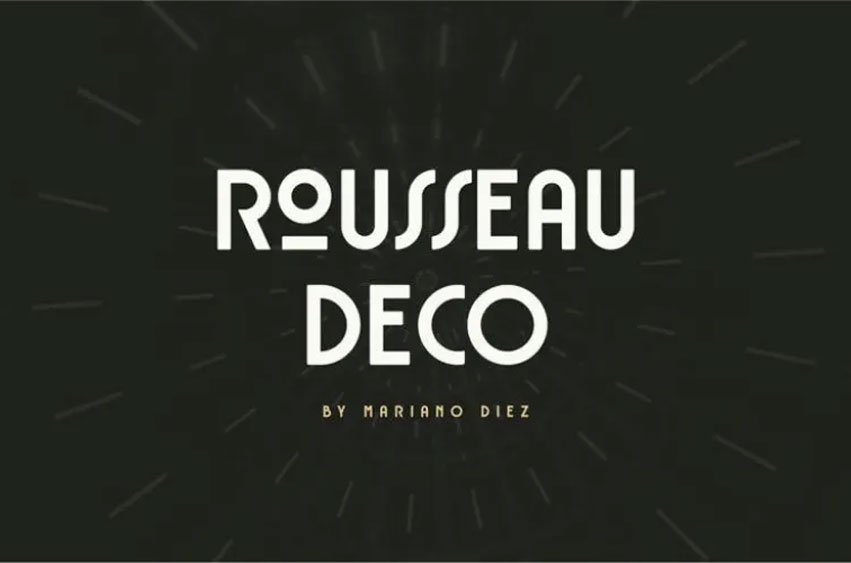
Rousseau Deco Font
Rousseau Deco Font Typeface. A sans typeface that is new and modern. the faces are either to be used as perfect friends or they can also work individually.
Rousseau Deco is used for posters, web design, branding, illustrations, badges and some other works.